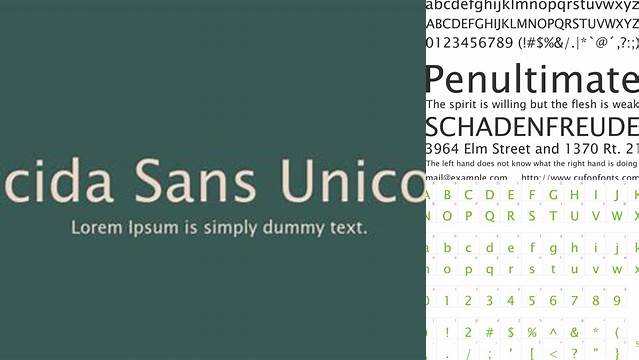
Hey guys! Ever needed that perfect font that just works for both English and Tamil? Look no further! Today, we’re diving deep into the Lucida Sans Unicode Tamil font, a versatile typeface that's super handy for various projects. We'll cover everything from its features to where you can snag it for free. Let's get started!
Lucida Sans Unicode: An Overview
Okay, so before we zero in on the Tamil version, let's quickly chat about the OG Lucida Sans Unicode. This font is like that reliable friend who’s always got your back. It’s a sans-serif font, which means it doesn’t have those little decorative strokes (serifs) you see in fonts like Times New Roman. What makes it special is its extensive character set. It supports a ton of different languages and symbols, making it a go-to for international documents and software. Think of it as the Swiss Army knife of fonts – ready for almost anything! It’s clear, legible, and works well on screen and in print. This makes it a popular choice for user interfaces, documents, and even website body text. Its clean design ensures readability, which is crucial whether you’re drafting an email or designing a complex layout. And because it’s been around for a while, it’s widely supported across different operating systems and applications.
The versatility of Lucida Sans Unicode extends beyond mere language support. It includes a wide range of symbols and special characters, making it suitable for technical and scientific documentation. Whether you need mathematical symbols, currency signs, or special punctuation marks, this font has got you covered. Its neutral design also makes it a safe choice for projects where you want the content to stand out without being overshadowed by the font itself. Many designers appreciate its adaptability, using it as a base for more customized designs or pairing it with other fonts to create visual contrast. Overall, Lucida Sans Unicode is a workhorse font that delivers consistent performance and broad compatibility, making it an essential addition to any font library.
Features of Lucida Sans Unicode Tamil Font
Alright, let's zoom in on the Tamil version! This specific adaptation includes all the cool features of the regular Lucida Sans Unicode, but with the added bonus of supporting the Tamil script. This is super important because Tamil has its own unique set of characters and ligatures (those fancy connected characters). The Tamil script is rich and complex, with characters that represent different sounds and combinations. A font that supports it properly needs to handle these nuances accurately. The Lucida Sans Unicode Tamil font does just that, ensuring that your Tamil text looks crisp, clear, and professional.
The Tamil adaptation ensures accurate rendering of complex characters, which is crucial for readability. It also includes the necessary ligatures and conjuncts, enhancing the aesthetic appeal of the text. This attention to detail makes it a reliable choice for documents, websites, and applications that require Tamil script. Moreover, the font maintains the same clean and modern look as the original Lucida Sans Unicode, making it easy to integrate into designs that use both Tamil and Latin characters. Whether you're working on a bilingual website or a document that combines English and Tamil, this font provides a seamless and consistent visual experience. Its broad support across different platforms and applications also ensures that your text will display correctly, regardless of the user's device or software. In essence, the Lucida Sans Unicode Tamil font offers the best of both worlds: the reliability and versatility of the original font, combined with accurate and beautiful rendering of Tamil script.